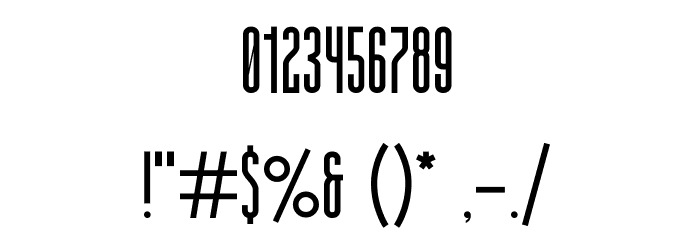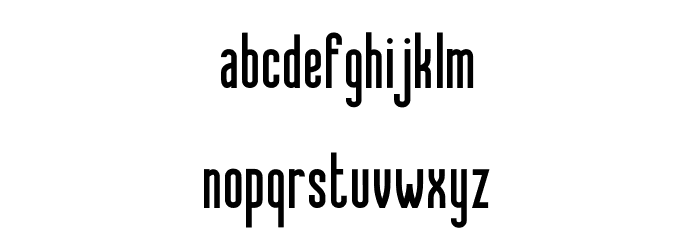
Highliner Font
Highliner Description
This font features a tall, narrow design with a modern and clean aesthetic. The characters are elongated with consistent vertical strokes, giving it a sleek and sophisticated look. The uppercase letters are particularly striking, with a uniform height that creates a strong visual impact. The lowercase letters maintain the same narrow style, ensuring readability while preserving the font's unique character. The numerals are distinct and align well with the overall design, making them suitable for various applications. Special characters are included, adding versatility to the font's use. The overall appearance is both contemporary and stylish, making it ideal for projects that require a modern touch.